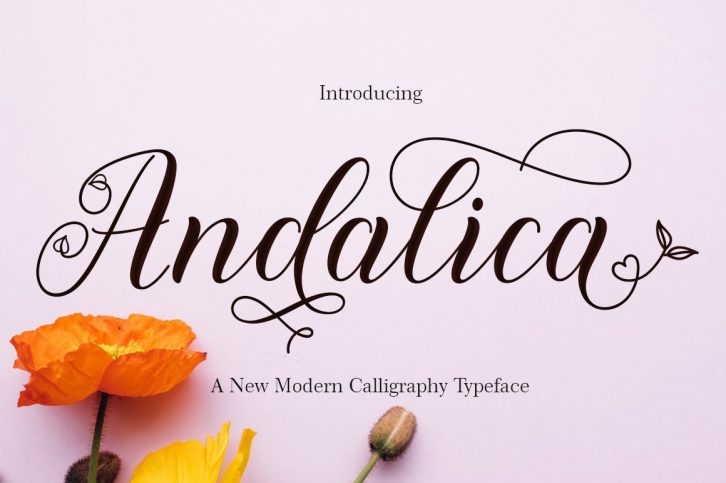
Andalica is a trendy and unique font with an authentic style. It was designed by Greentype and it's a great choice for creative people who need such a font. It was released on October 29, 2019 and the file size is 2.42 MB. Andalica will add an organic vibe to any design idea!